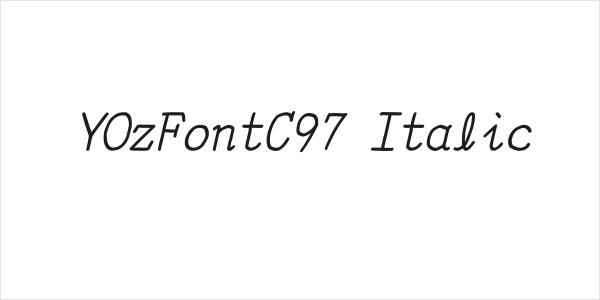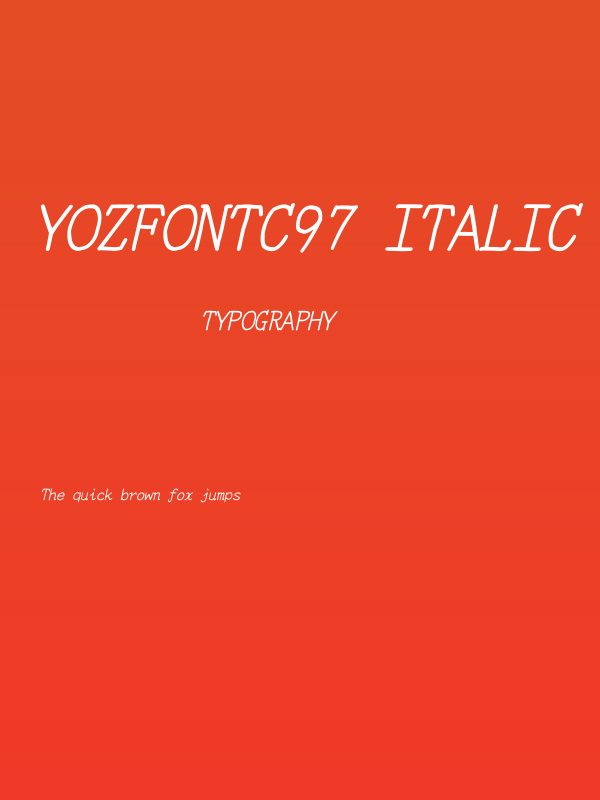
YOzFontC97 Italic Font
YOzFontC97 Italic Description
This font features a distinct italic style with a handwritten appearance, characterized by its elegant and flowing letterforms. The uppercase letters maintain a consistent slant, while the lowercase letters exhibit a smooth, cursive quality. The numerals are clear and legible, complementing the overall design. Special characters are thoughtfully integrated, maintaining the font's cohesive aesthetic. The font's style is both sophisticated and approachable, making it suitable for a variety of design applications.